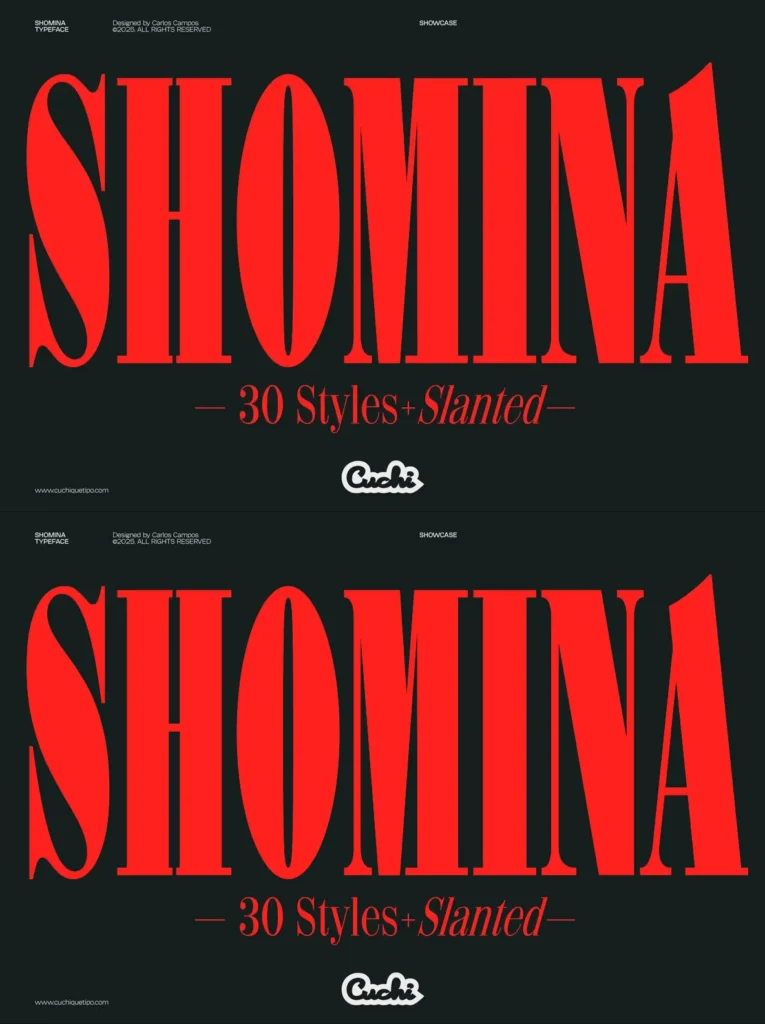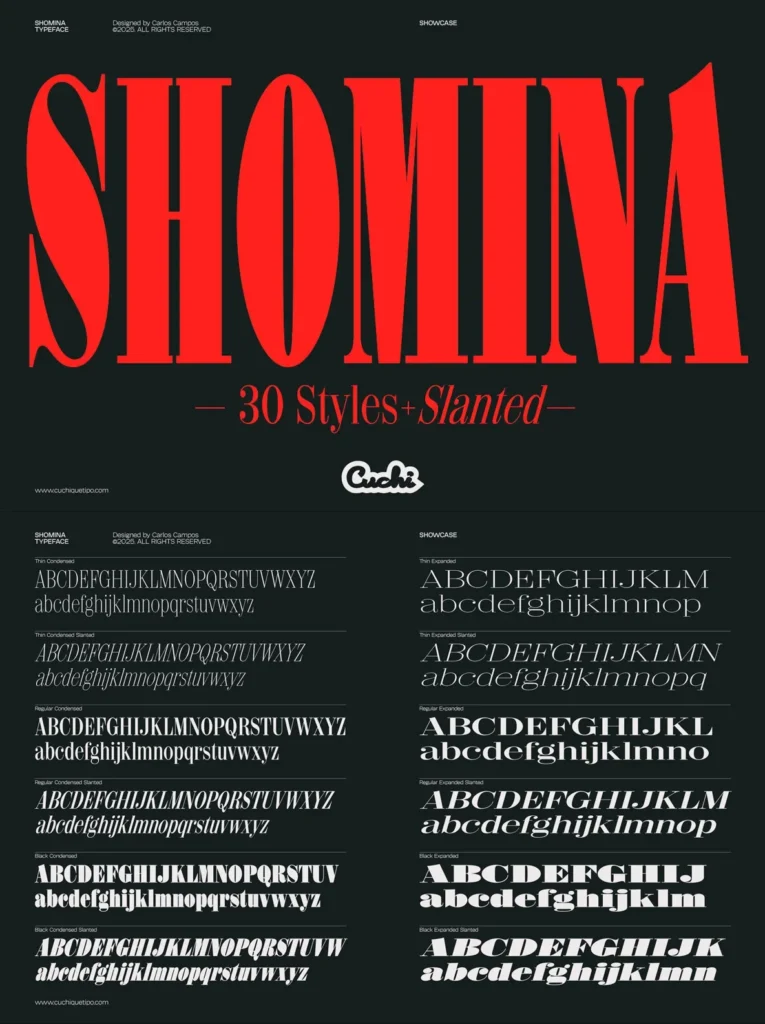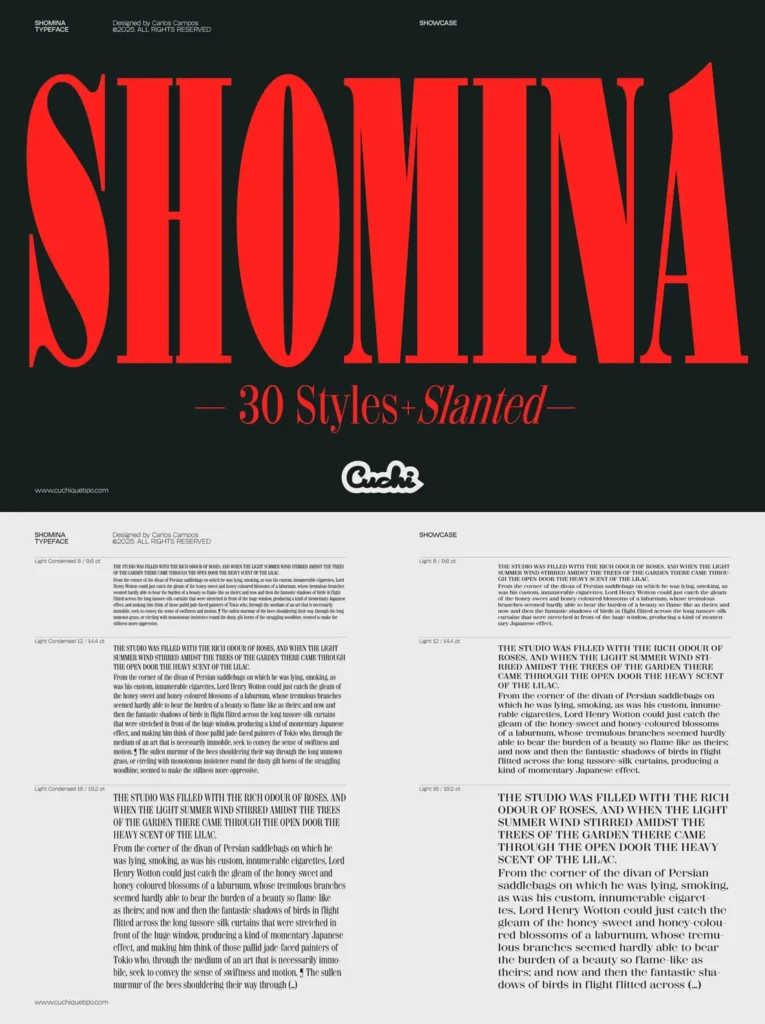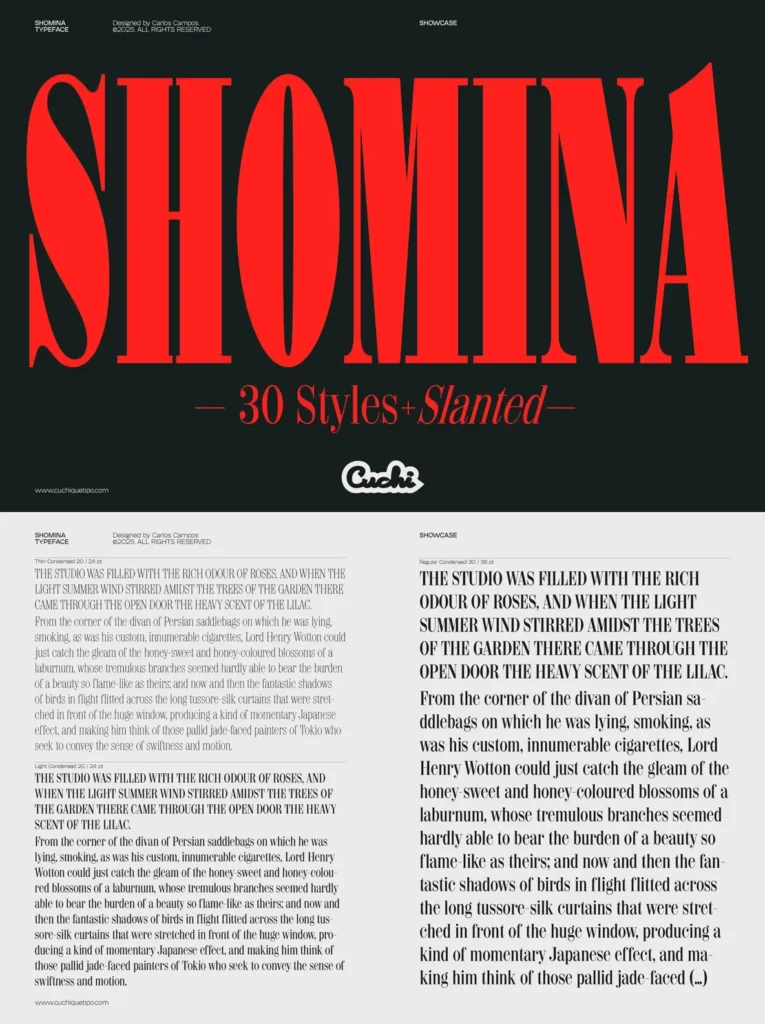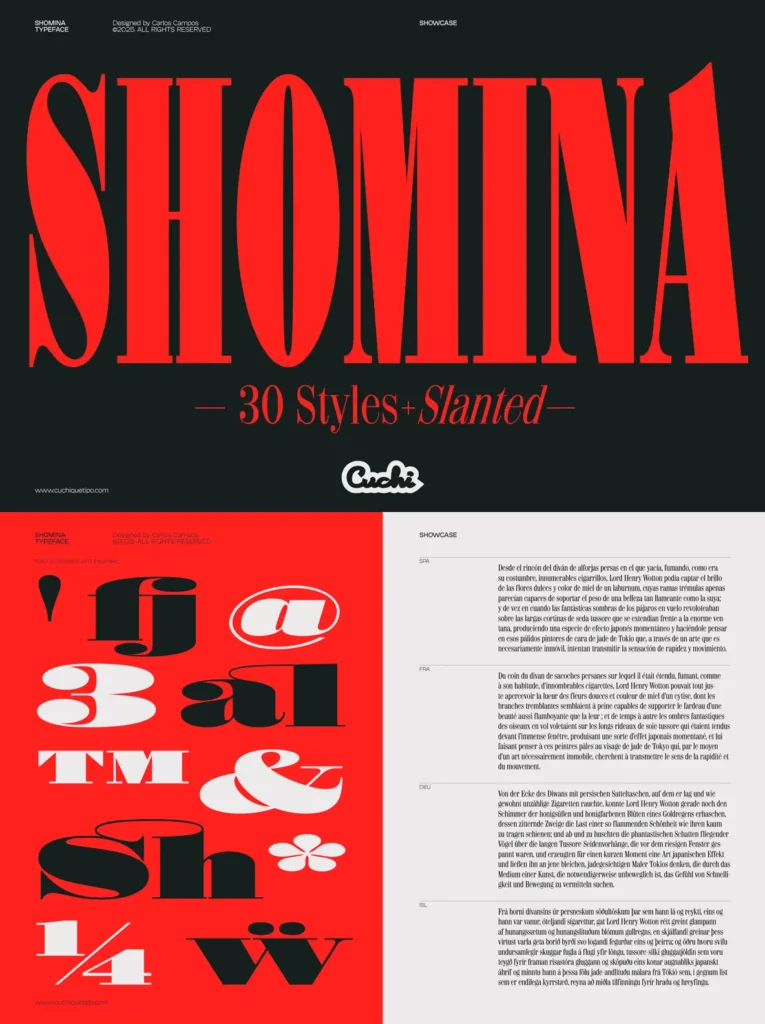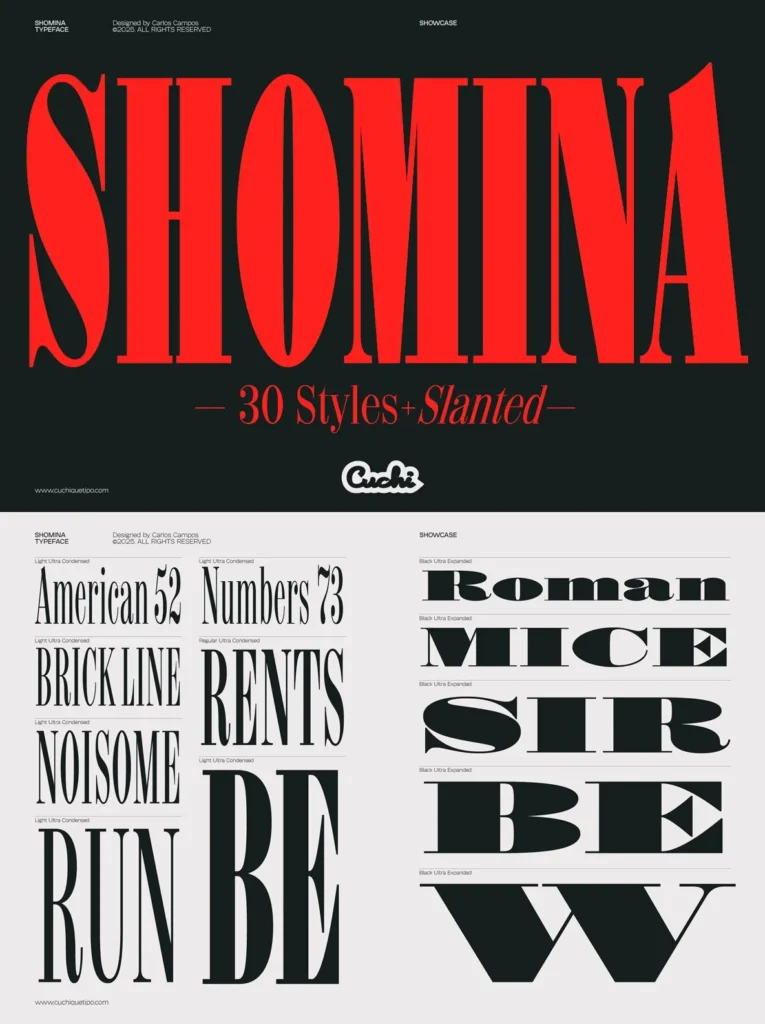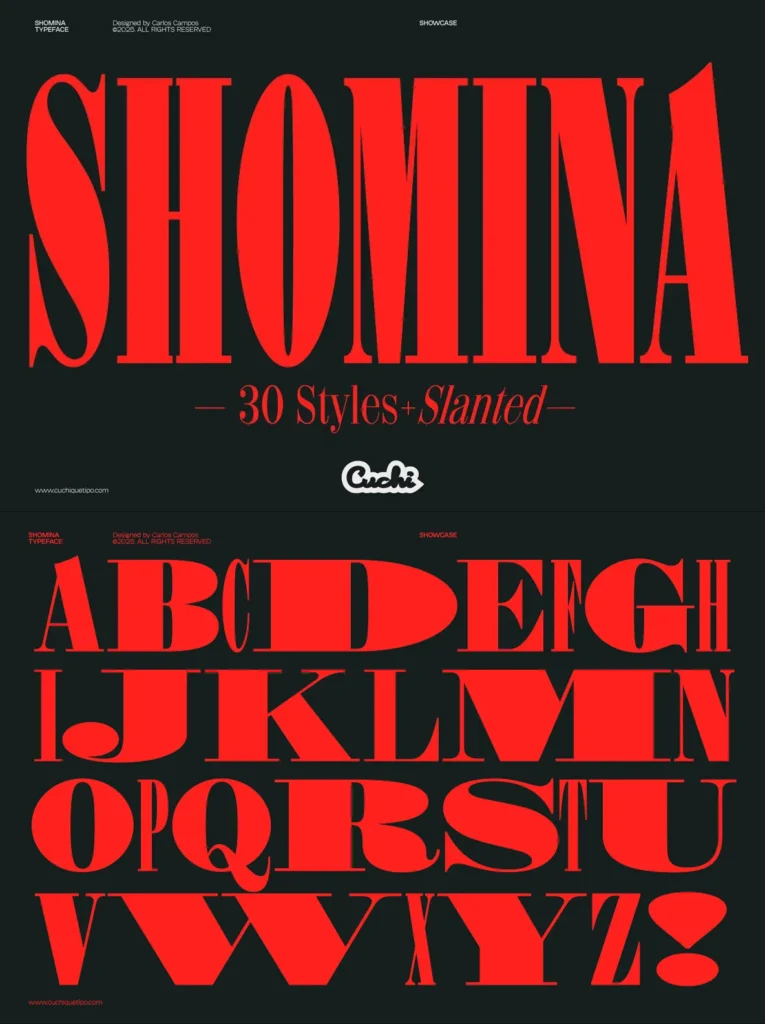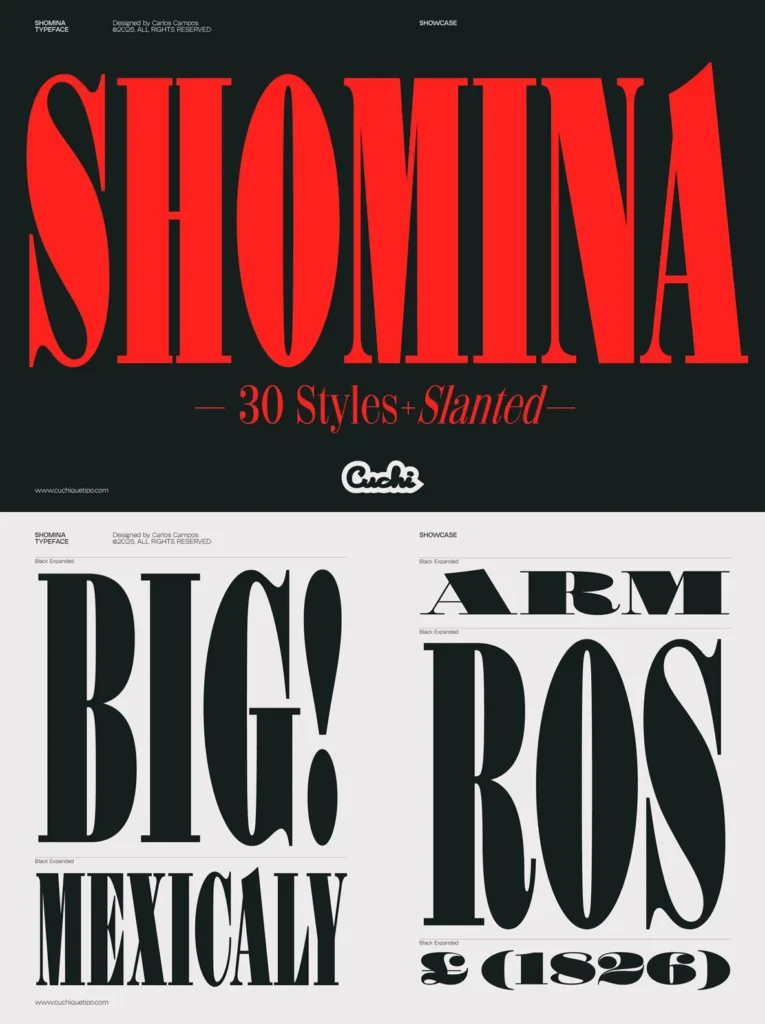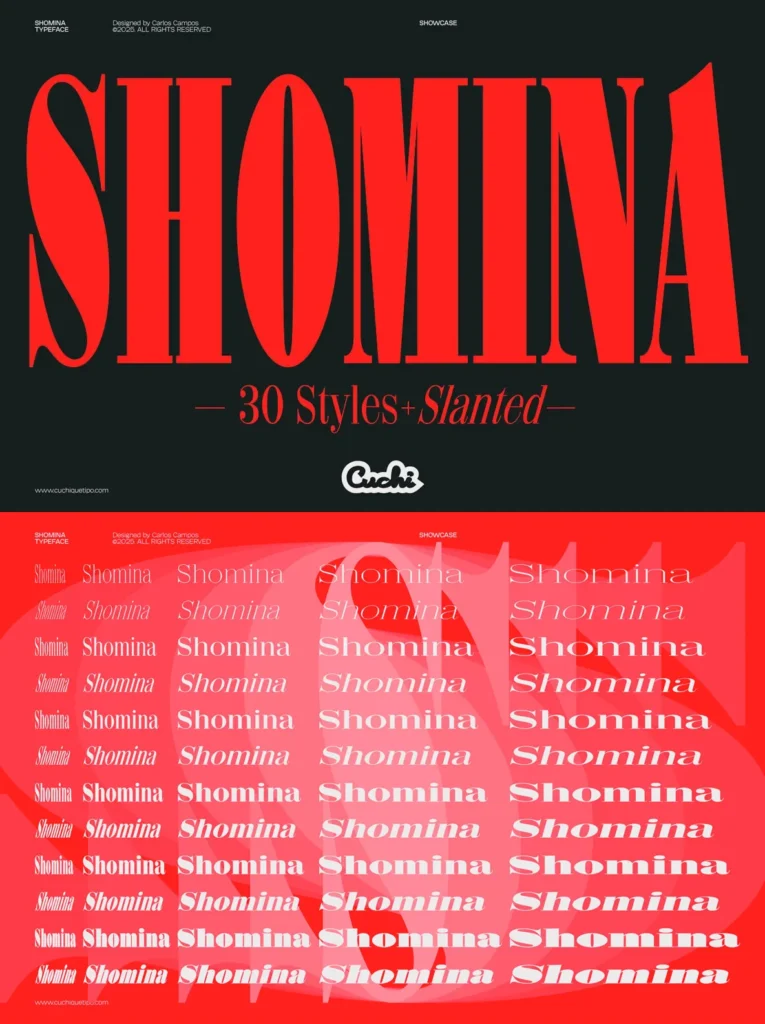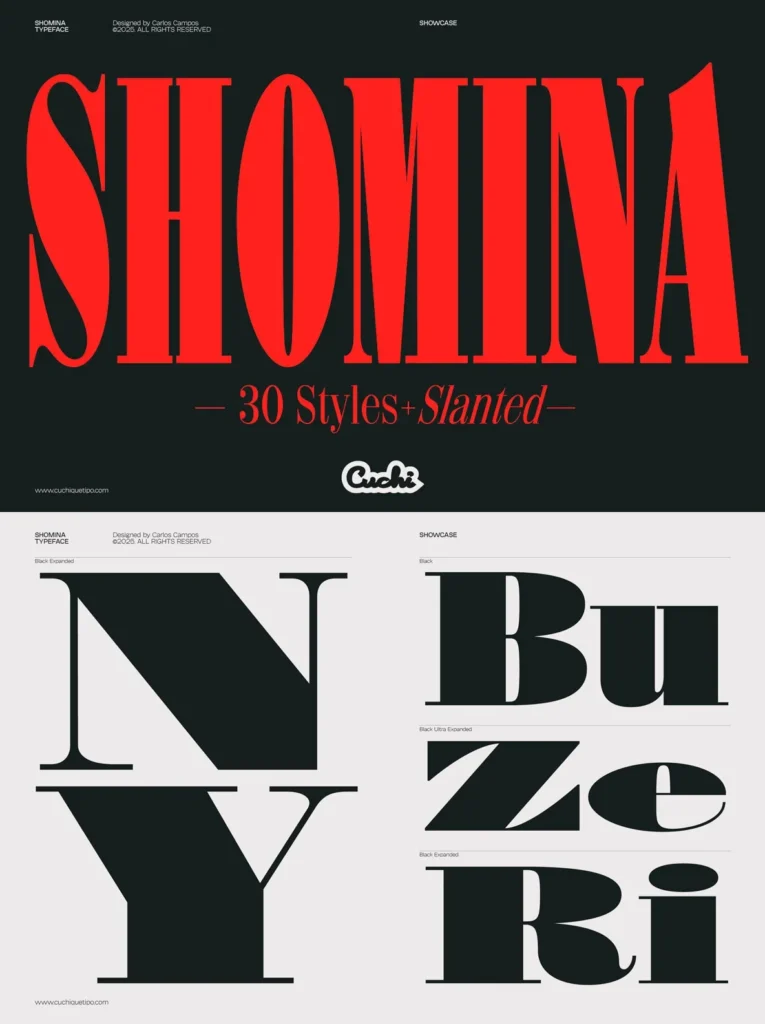
Shomina: Traditional Elegance Meets Modern Refinement
Shomina is a typeface that gracefully blends the elegance of traditional Didone forms with a contemporary edge. Its design offers a seamless fusion of classical beauty and modern clarity, creating a versatile tool for diverse typographic projects. Boasting thirty weights, including slanted variants, Shomina provides unmatched versatility, tailored for both print and digital mediums.
Rooted in the Didone style, Shomina maintains its timeless poise while adapting to modern aesthetics. It performs well for extended reading but shines particularly in larger sizes, revealing the intricacy of its design. With a broad array of glyphs and extensive OpenType features, it allows designers to customize its presentation to exact preferences.
Features:
420 glyphs
380 characters
Three axes
60 styles
Eight layout features
Supports 90 languages
Shomina’s sophisticated character makes it a valuable addition to any designer’s collection, enhancing both traditional and avant-garde compositions alike with its refined and dynamic presence.